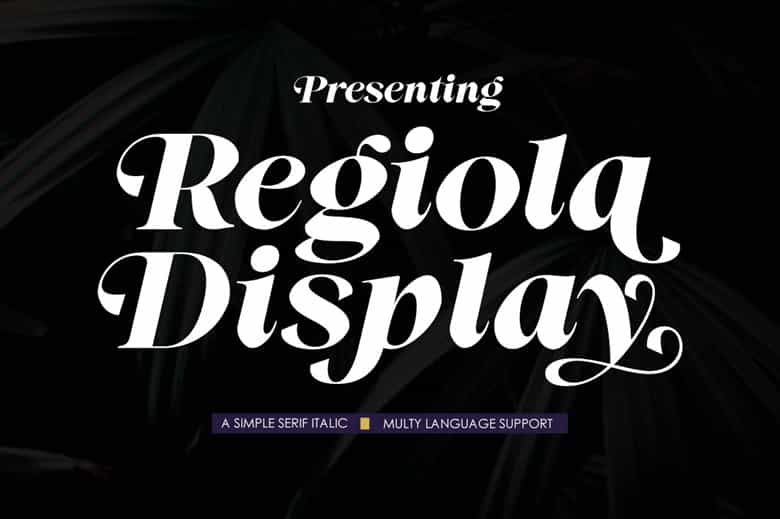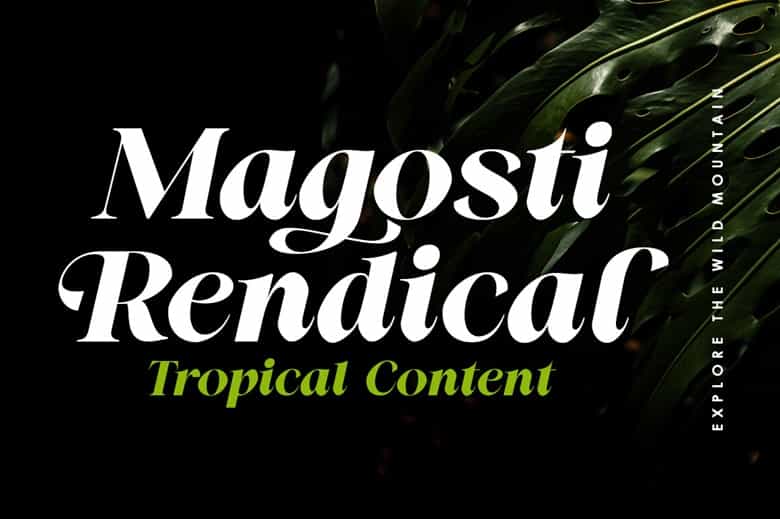
Regiola Display is a new serif font. This new natural Italic serif style with a touch of elegance and modern feel which gives this font a natural, stylish look. Regiola Display is ideal for invitations, logos & branding, photography, advertising, watermarks, social media posts, product packaging, product designs, labels, wedding designs, stationery, special events and any other theme that needs to be set.